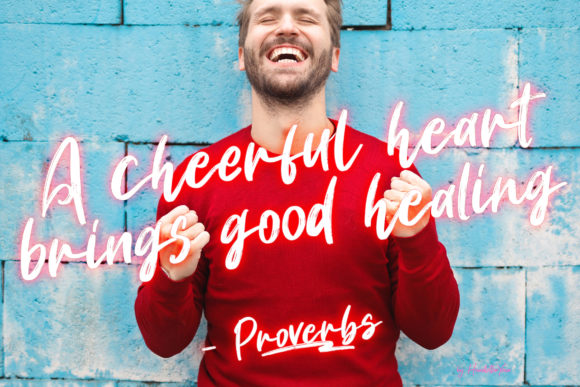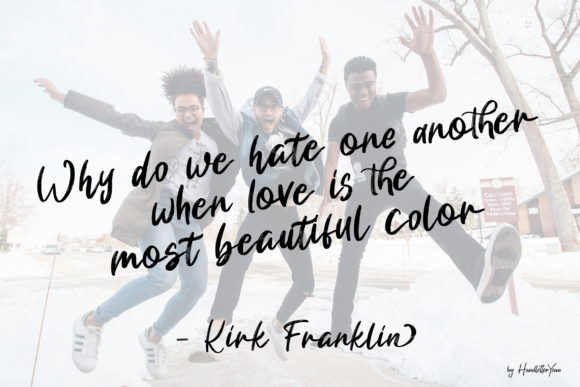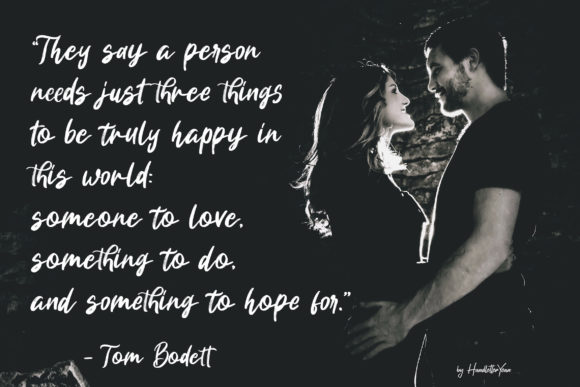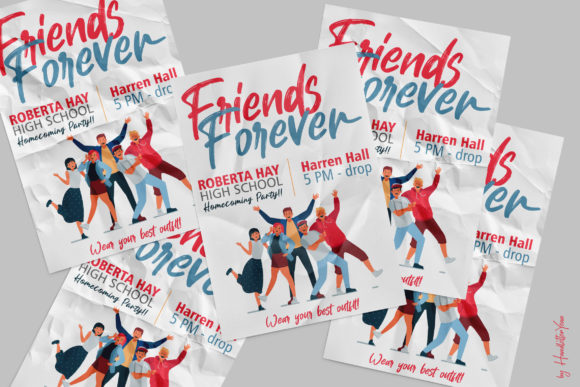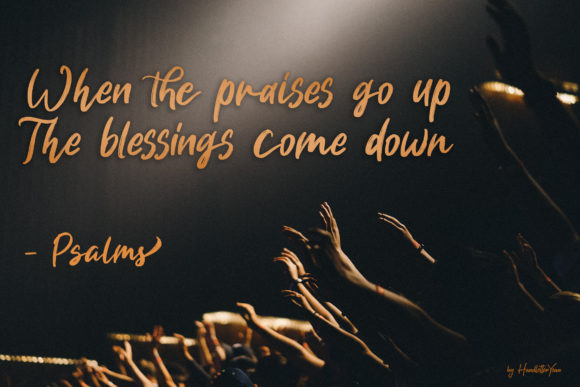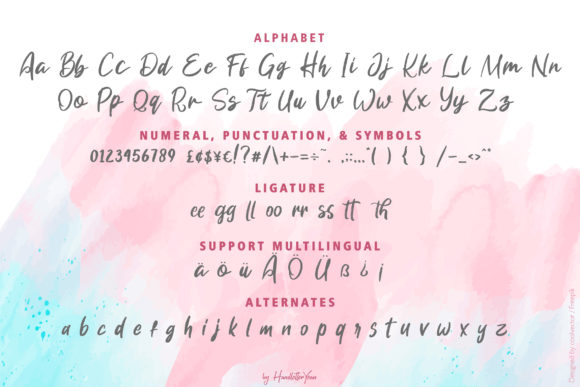
Introduction to Samona Font
Have you ever been working on a creative project, pouring your heart and soul into it, only to be stuck on finding the perfect font to convey the emotions you’re trying to express? I’m sure many designers can relate to this feeling. That’s exactly how I felt until I stumbled upon the Samona Font, a simple yet powerful handwritten script font that radiates happiness, love, and hope.
As a design resource, the Samona Font is a game-changer for any creative project. Its bold look and transparent background make it perfect for adding a touch of warmth and personality to your designs. And the best part? It’s available for free download, making it an accessible and valuable resource for designers of all levels.
Key Features of Samona Font
- High-quality font design with a modern and elegant style, suitable for creative projects and designs.
- Designed with a focus on legibility and readability, making it an excellent choice for body text and headings.
- Includes a range of weights and styles, from light to bold, to cater to different design needs.
Honest Review: Samona Font
As a designer, I’m always on the lookout for high-quality design resources to elevate my creative projects. Recently, I stumbled upon the Samona Font, and I’m excited to share my honest review.
What works well: ✨ The Samona Font is a beautiful, modern script font that’s perfect for adding a touch of elegance to any design. I love how it pairs well with transparent backgrounds, allowing the font to take center stage. The high quality of the font is evident in its smooth lines and subtle nuances. I’ve used it for a variety of projects, from branding to editorial design, and it never fails to impress.
- High quality: The font is well-crafted and looks great at various font sizes and resolutions.
⚠️ One limitation I’ve noticed is that the font is not as versatile as some other script fonts on the market. It’s best suited for projects that require a clean, elegant look. However, this isn’t necessarily a bad thing – it’s great to have a font that specializes in a particular style.
Overall, I’m thoroughly impressed with the Samona Font. Its unique style and high quality make it a valuable addition to any designer’s toolkit. Whether you’re working on a creative project or just need a beautiful font to spice up your design, the Samona Font is definitely worth checking out.
The Samona Font is perfect for use in a variety of creative projects, including wedding invitations, business cards, and brochures. Its elegant design and high-quality font make it ideal for use in professional settings.